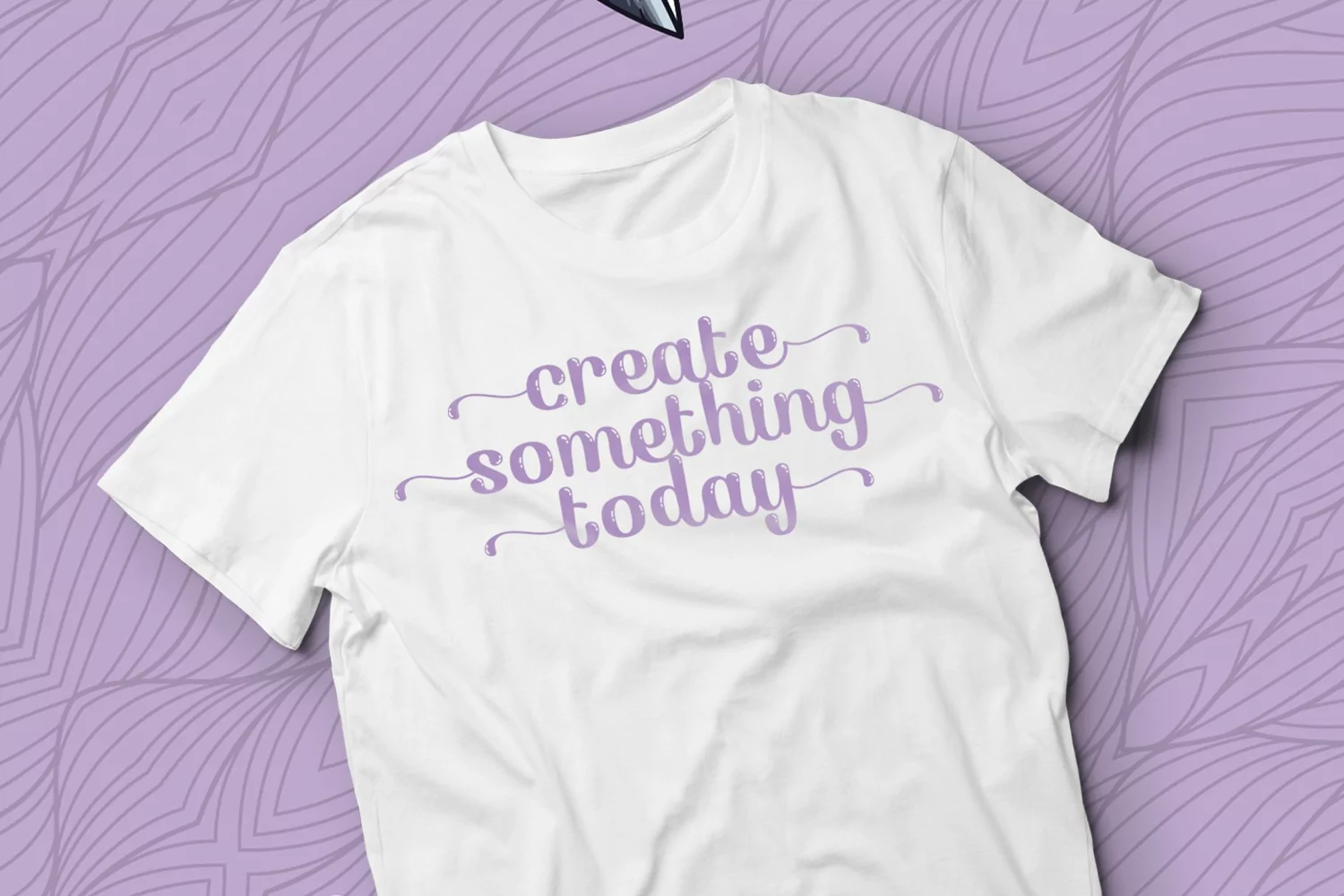
Celia is kind of modern hand scratches with a lot of features in it to contain a complete set of letters lower and uppercase letters, multilingual support also contains several ligatures and alternate style stylistic.